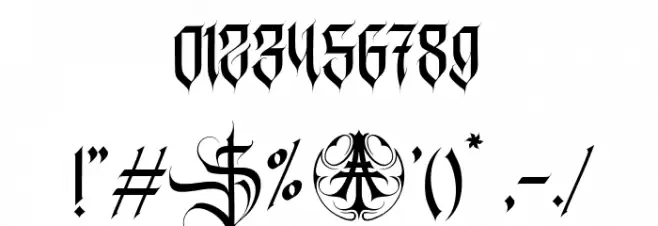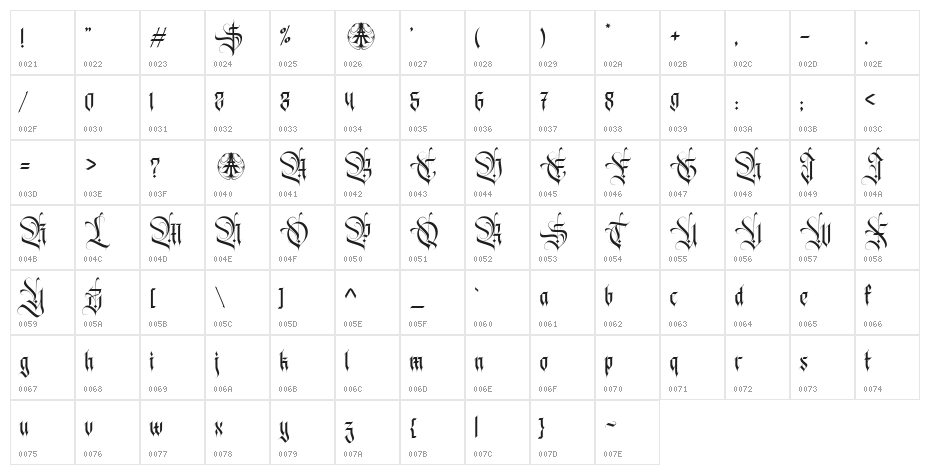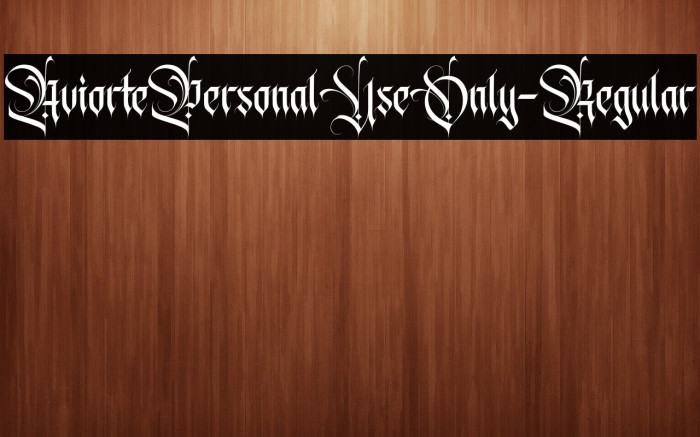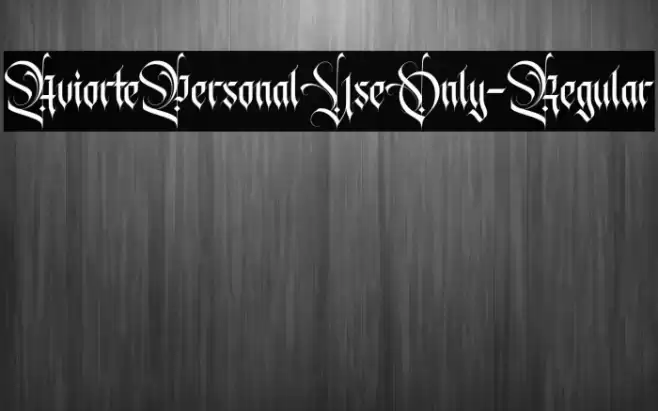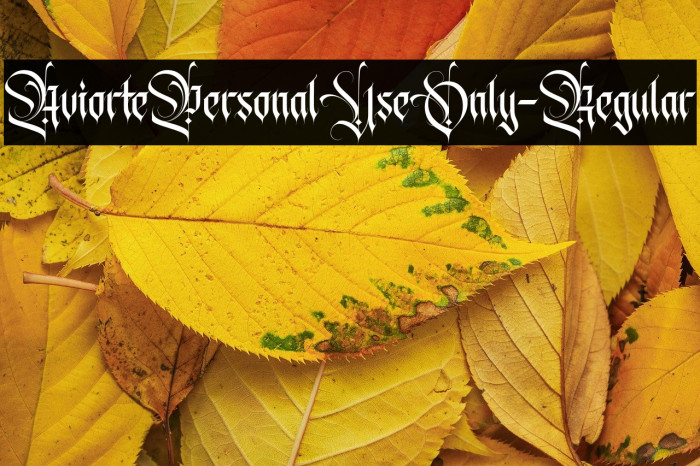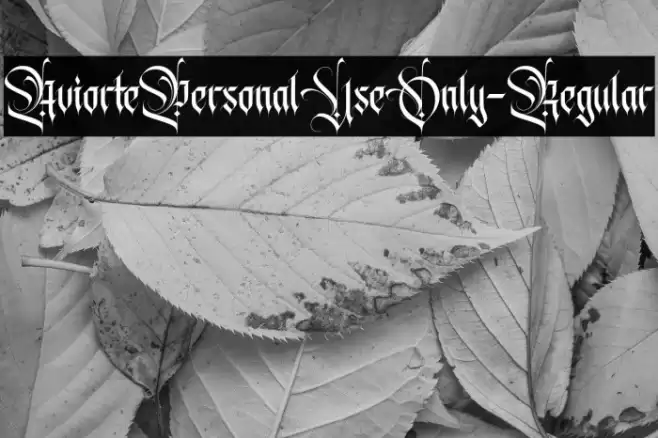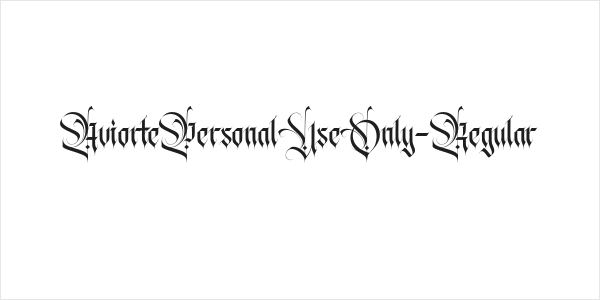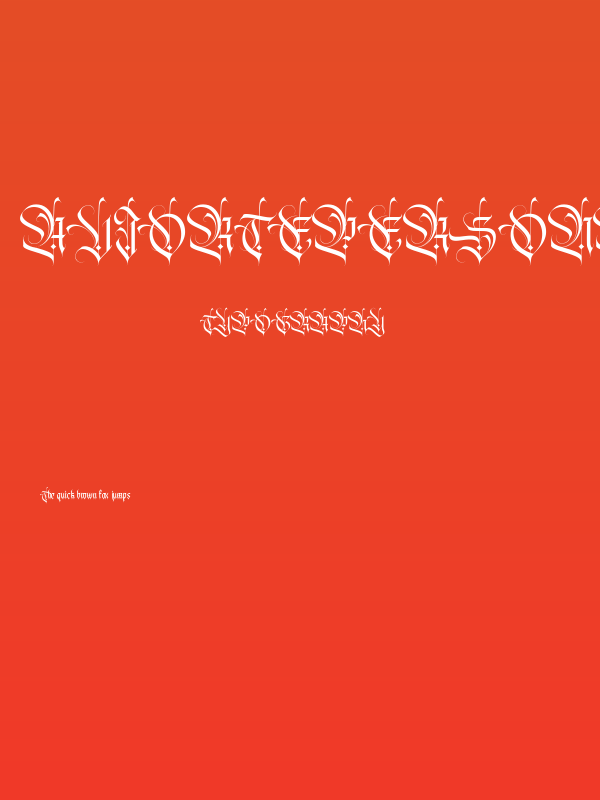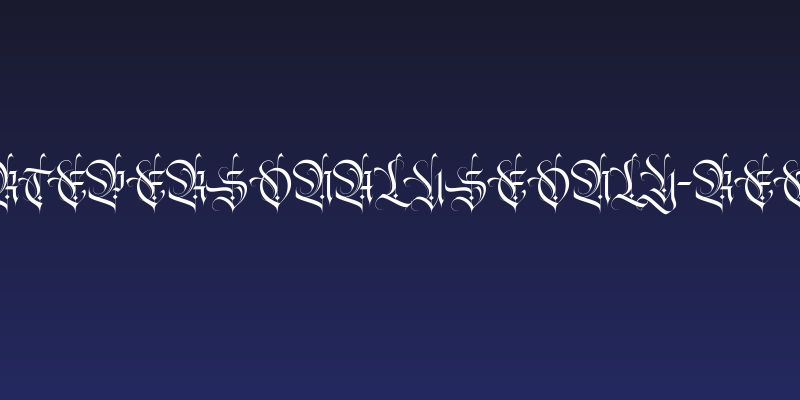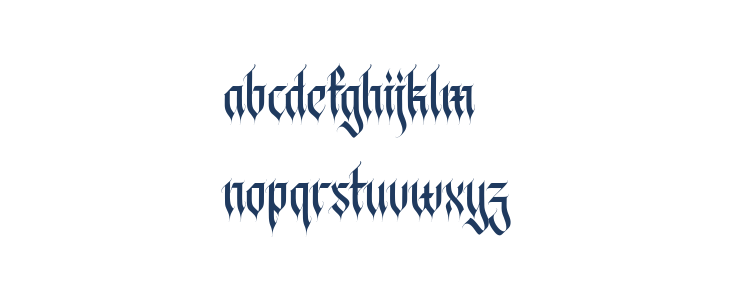
AviortePersonalUseOnly-Regular Font
AviortePersonalUseOnly-Regular Description
This font exhibits a striking and intricate design, reminiscent of traditional Blackletter styles. The characters are adorned with elaborate flourishes and sharp, angular strokes, creating a sense of elegance and complexity. The uppercase letters are particularly ornate, with each character featuring unique embellishments that enhance their visual impact. The lowercase letters maintain a consistent style, though they are slightly less elaborate, ensuring readability while preserving the overall aesthetic. The numerals and special characters are designed to match the ornate style of the alphabet, making them suitable for decorative purposes. This font's distinct appearance makes it ideal for projects that require a historical or gothic touch.
Use CaseLogos, Headlines, Decorative text
Proposed ProjectsIdeal for historical documents, gothic-themed designs, wedding invitations, or branding that requires a classic and elegant touch.